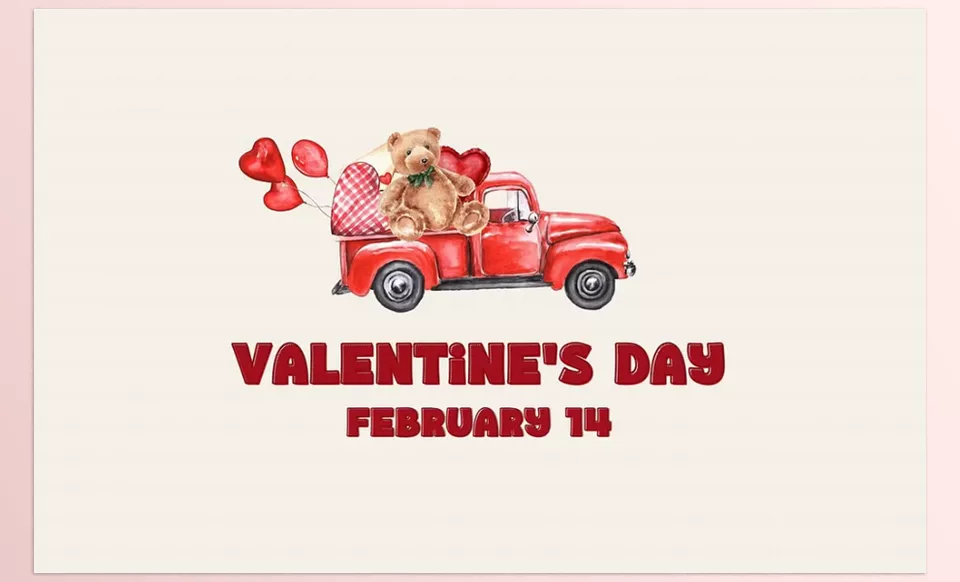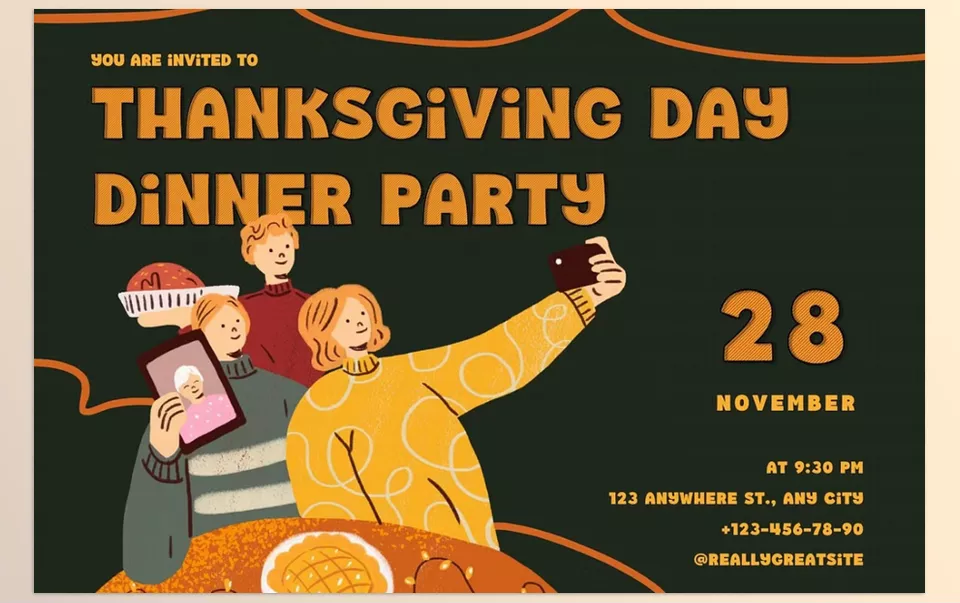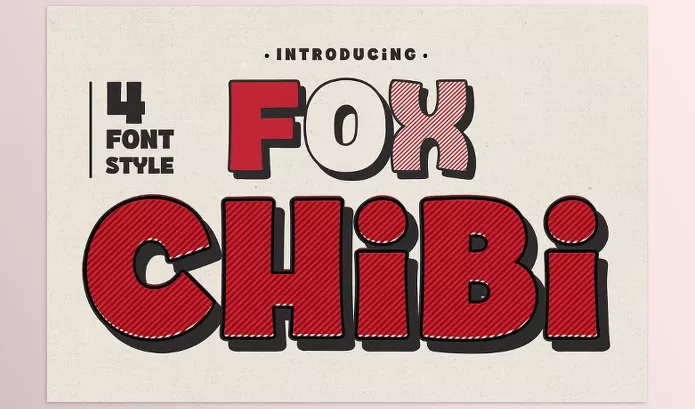
Incorporated with rounded edges and a flamboyant demeanor, Creative Market – Fox Chibi 4 Font Styles will surely capture your attention with its playful font display. The font is best suited for retro, cartoon, and comic-inclined-themed designs.
Fox7 By Rattana – Fox Chibi 4 Font Styles Features
• Regular Style: It is best when utilized for powerful design statements, as it is bold, powerful, and makes a statement.
• Strokes Style: This style has lined textures that look completely geometric and artistic in motion.
• Outline Style: It allows its users to be creative, and use multiple fonts at once, since hallow works best for layering typography.
• Shadow Style: Gives a slightly more sculpted look but still keeps the vintage theme.
• Versatile Use: Great for posters and children’s content— considering comics and capitals.
Image 1: This quirky typeface adds an edge to designs and is a perfect example of modern-day boldness.
Creative Market - Fox Chibi 4 Font Styles - This quirky typeface adds an edge to designs and is a perfect example of modern-day boldness.
Image 2: Great choice for designs that are cartoonish or retro- style and need to pop out of the page.
Creative Market - Fox Chibi 4 Font Styles - Great choice for designs that are cartoonish or retro- style and need to pop out of the page.